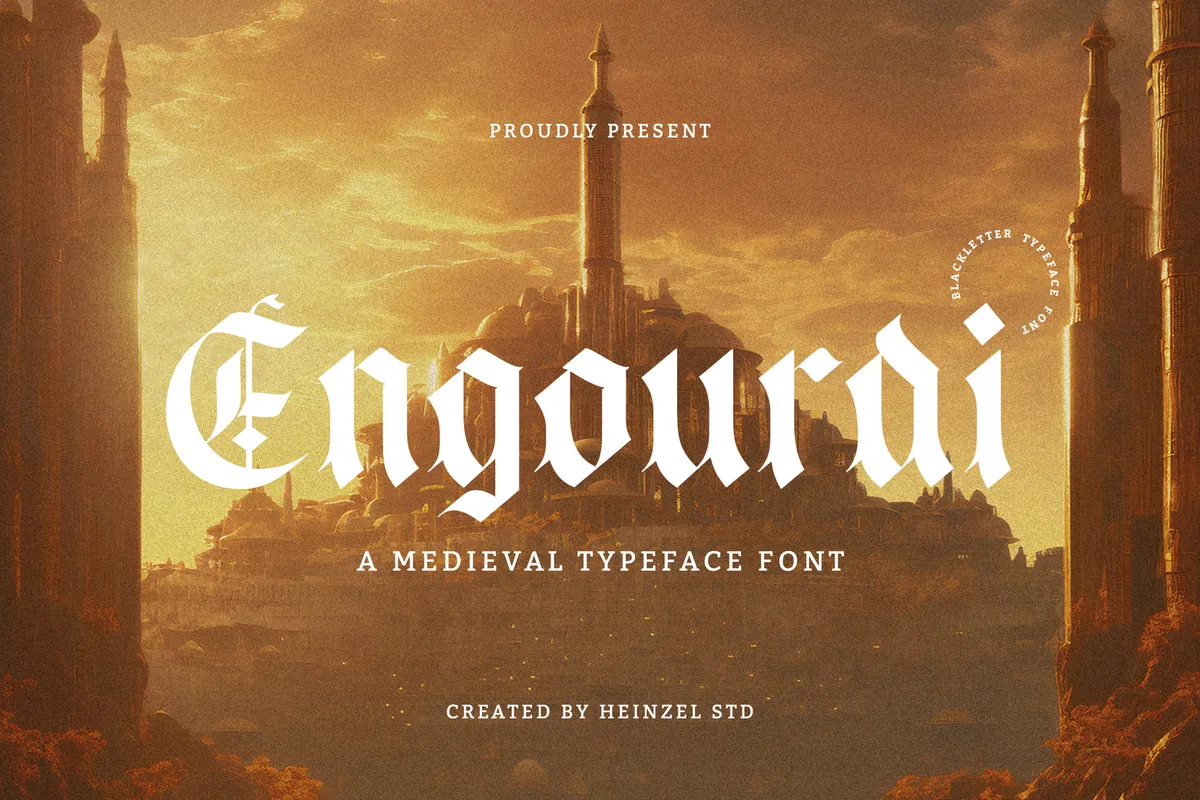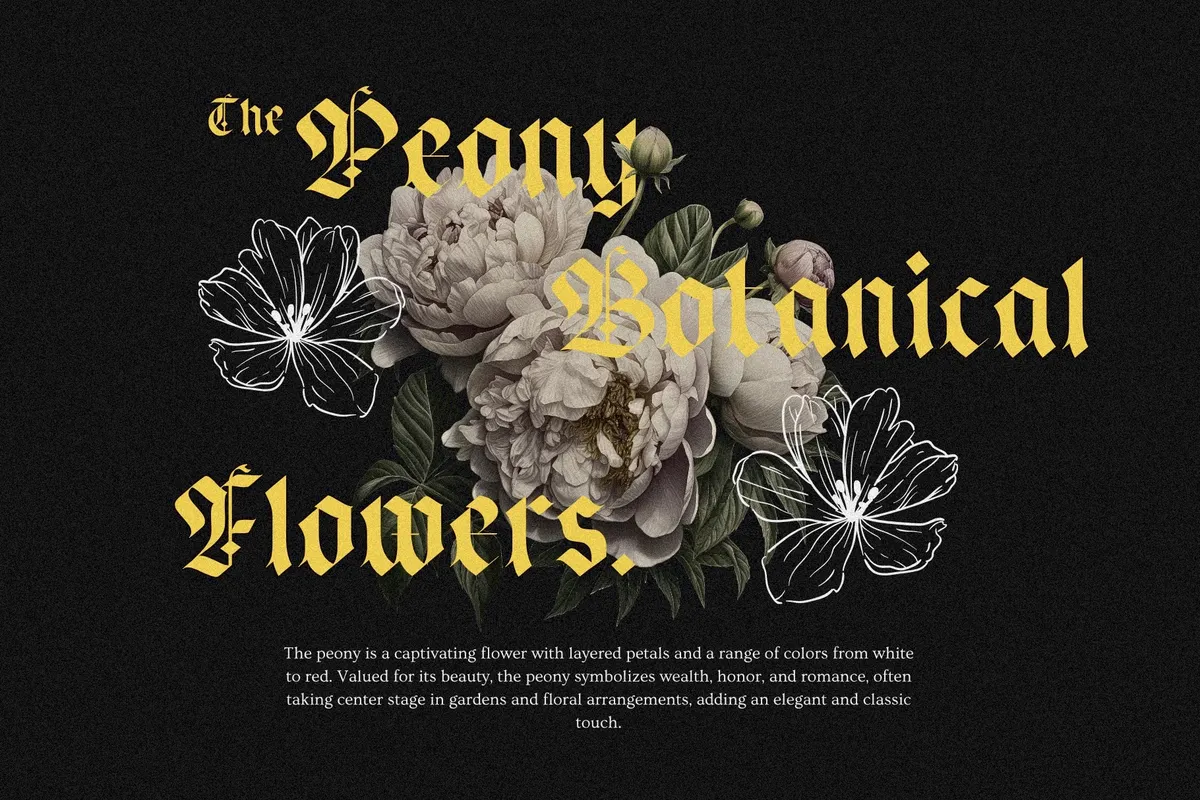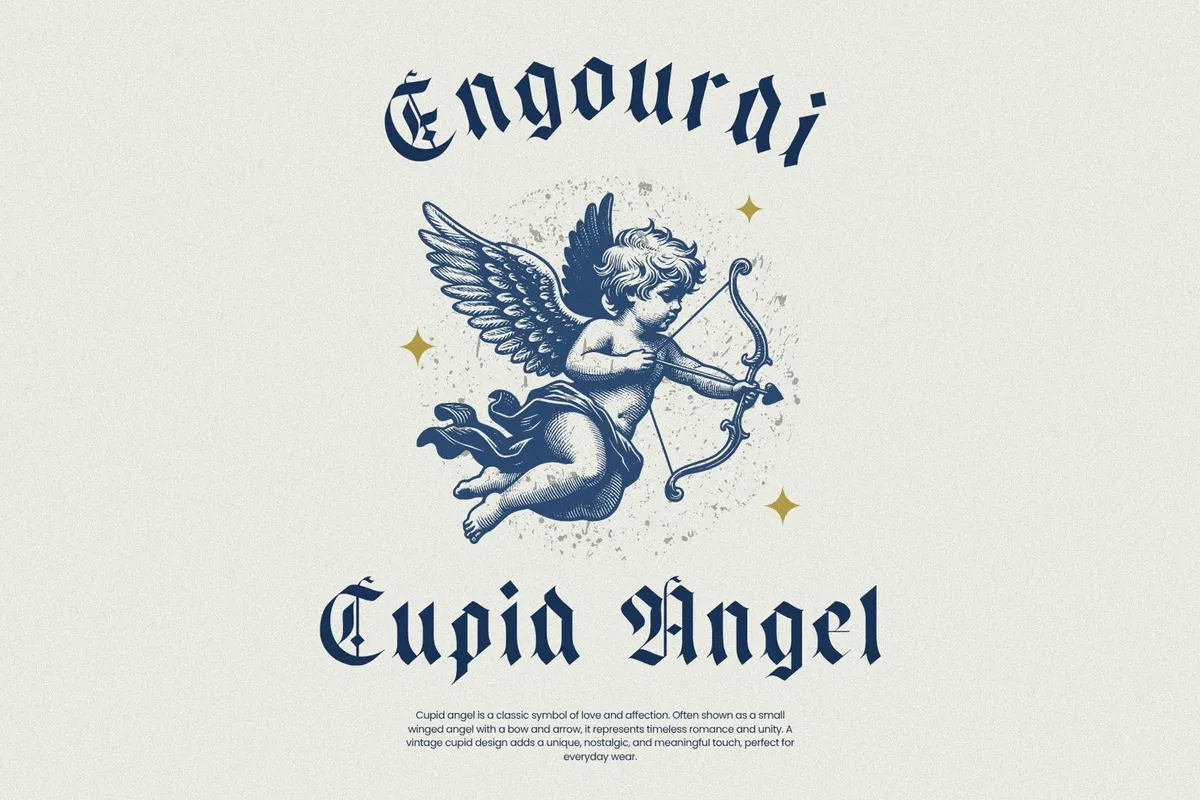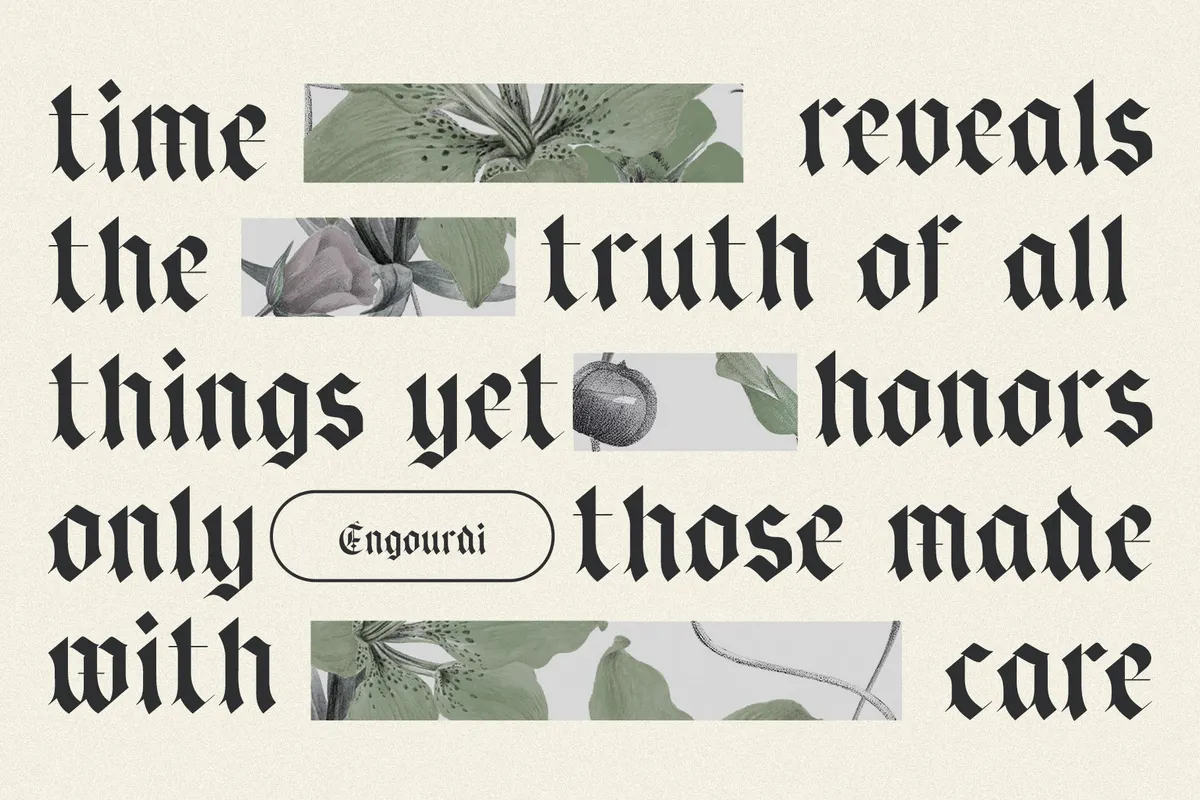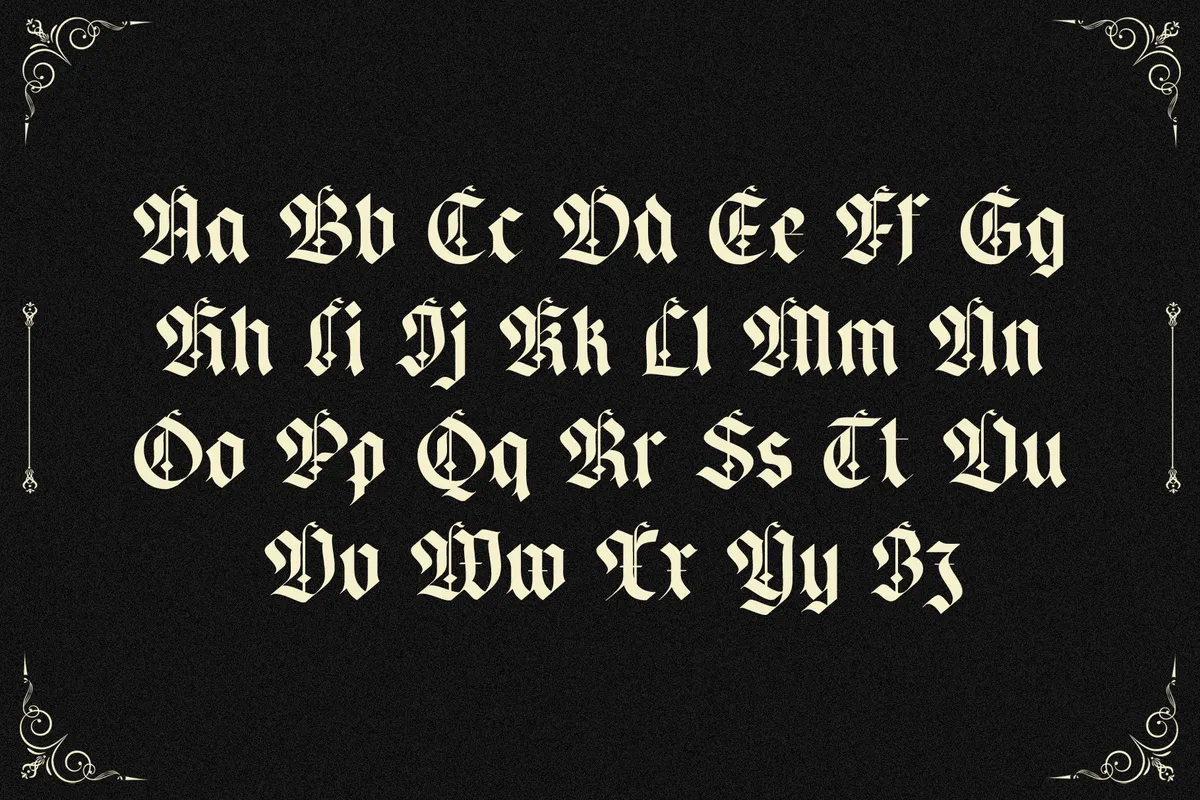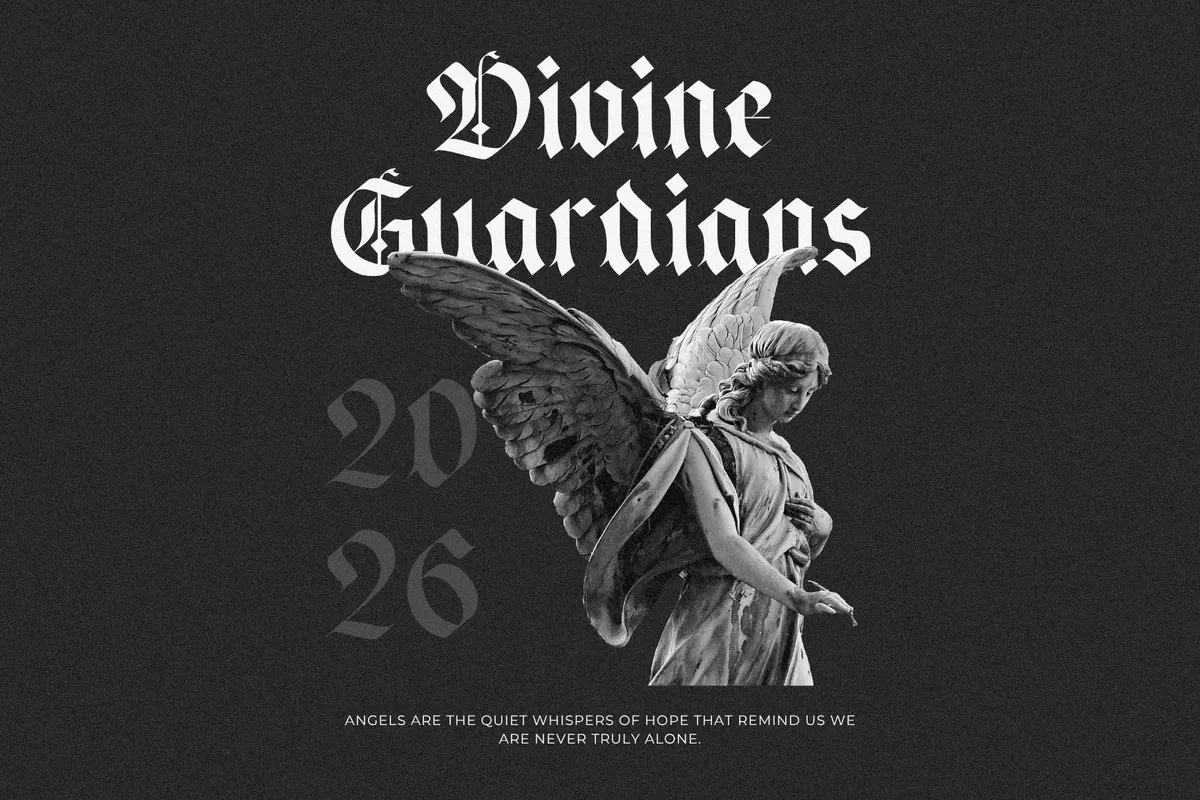
Engourdi - Medieval Blackletter Font
Engourdi-Regular
Engourdi draws sharp, angular blackletter capitals with real gothic weight, closer to a medieval manuscript than a soft display revival. Uppercase and lowercase are built as two distinct alphabets, so the blackletter keeps its dense, dramatic texture at both cases.
Use it for medieval branding, fantasy artwork, game titles, album covers, gothic posters, tattoo art, and beer labels.
- Uppercase & lowercase;
- Numerals, punctuation & symbols;
- Ligatures (fi, fl), fractions, and superscript figures;
- Extended Latin character set